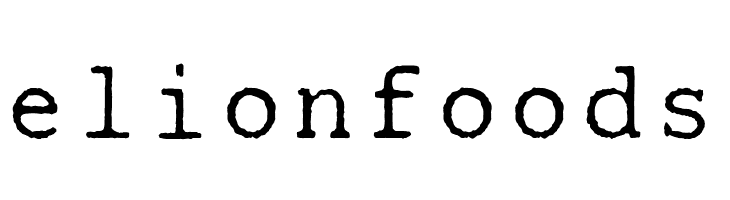
A vintage, typewriter-style font with rugged, textured characters.
A rugged, monospaced typeface with a vintage typewriter aesthetic.
A vintage typewriter-style font with a distressed, mechanical appearance.